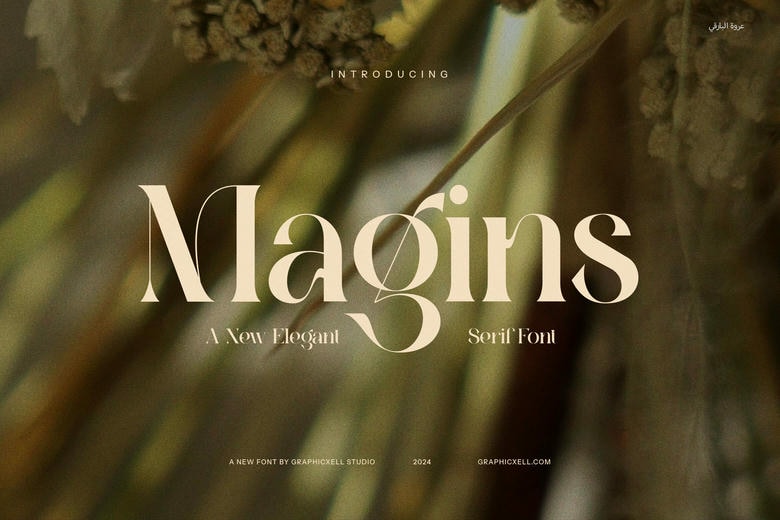
Magins Font
Magins is a classic typeface reflecting the excellence of both early and contemporary designs. The design of Magins is a true serif font that also has an unusual choice of additional strokes; such an approach makes Magins rather vintage but at the same time elegant. This gives it a historical feel yet its classic appeal can also accommodate current refined projects.
Magins Serif Font